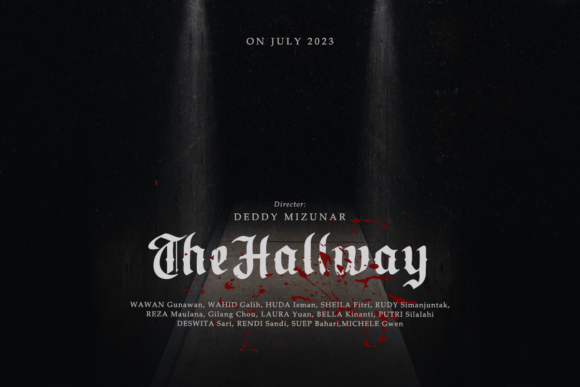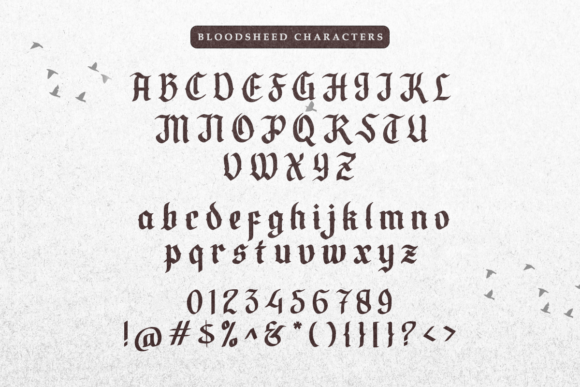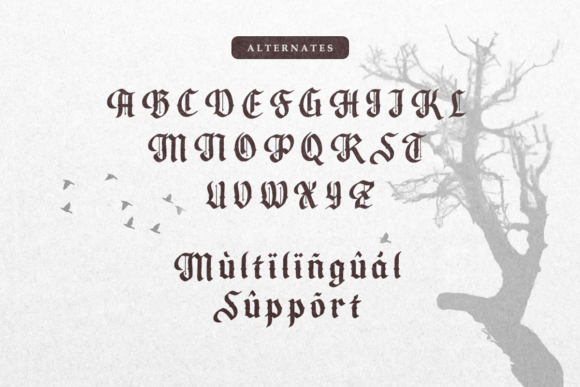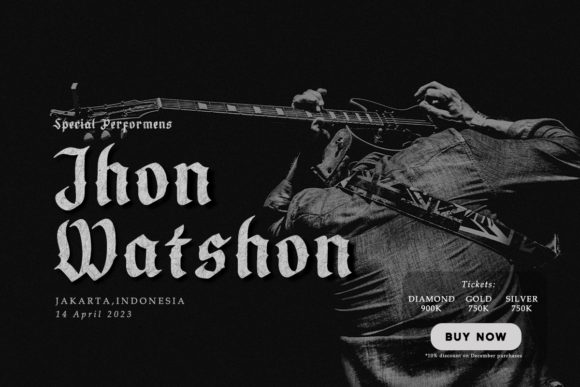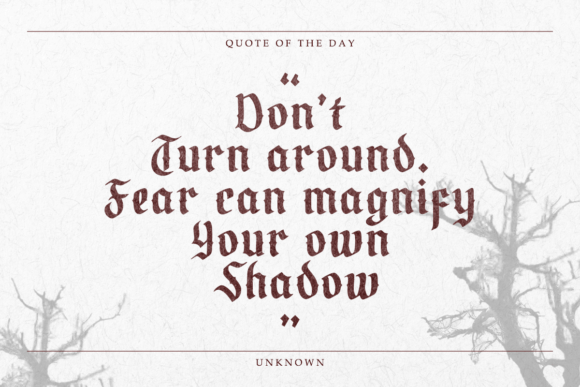
The Power of Blood Sheed Font: Elevate Your Designs with Old-World Elegance
I’ll never forget the time I was working on a project for a historical drama film, and I needed a font that would transport my audience to another era. I scoured the internet, tried countless fonts, but nothing seemed quite right. That was until I stumbled upon Blood Sheed Font. Its commanding and styled blackletter design immediately caught my attention, and I knew I had found the perfect fit. In this article, I’ll share with you my experience with Blood Sheed Font, its features, and how to make the most of it in your designs.
An Honest Review of Blood Sheed Font
- ✨ Bold and Dramatic Lettering: Blood Sheed Font is perfect for titles and headlines, adding a touch of old-world elegance to any project.
- ✅ Intricate Details: The font’s intricate details give it a unique and sophisticated edge, making it stand out from other blackletter fonts.
- 💯 Versatility: Blood Sheed Font can be used for a variety of projects, from film and drama to advertising and packaging.
While Blood Sheed Font is an excellent choice for many projects, there are a few things to keep in mind:
- 🤔 Legibility at Small Sizes: Due to its intricate details, Blood Sheed Font may not be the best choice for body text or small sizes.
- ⚠️ Glyph Limitations: Some users have reported that the font may not have as many glyphs as they would like, which can limit its use for certain projects.
The Backstory of Blood Sheed Font
Blood Sheed Font was designed by a renowned type foundry with a passion for creating unique and stylish fonts. The font’s design is inspired by traditional blackletter scripts, with intricate details and bold lettering. While the exact story behind Blood Sheed Font may be shrouded in mystery, its beauty and elegance are undeniable.
| Font Name | Blood Sheed Font |
| Author | Dzikrulauliaart |
Q: What is Blood Sheed Font?
A: Blood Sheed Font is a commanding and styled blackletter font, perfect for adding a touch of old-world elegance to any project.
Q: Is Blood Sheed Font suitable for body text?
A: Due to its intricate details, Blood Sheed Font may not be the best choice for body text or small sizes. It’s better suited for titles and headlines.
Q: Is Blood Sheed Font available in different styles?
A: While Blood Sheed Font may not have multiple styles, its bold and dramatic lettering makes it versatile enough to be used in a variety of contexts.